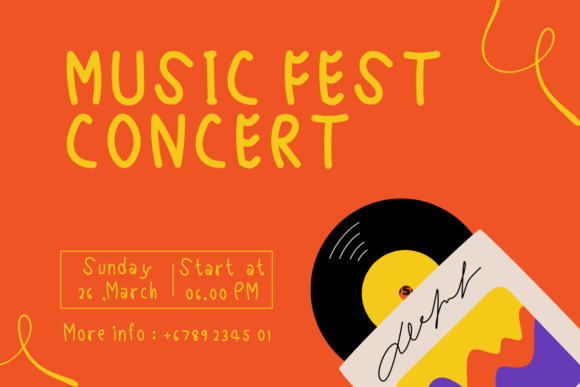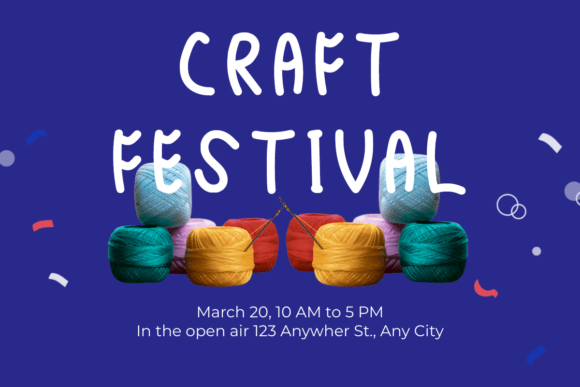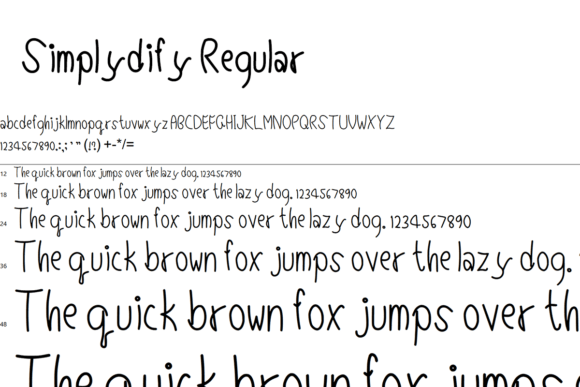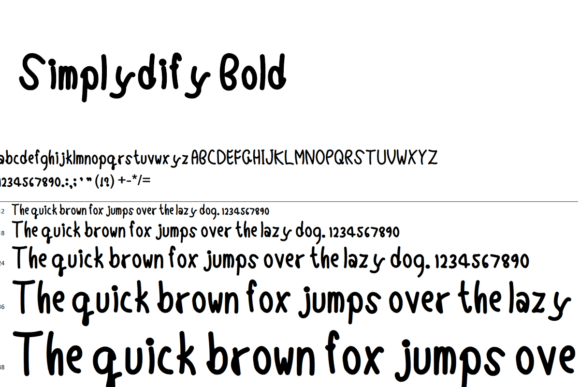
Introduction to Simplydify Font
Remember that moment when you’re working on a creative project, and you just can’t seem to find the right font to bring your vision to life? The words stare back at you, lacking the personality and charm you envision. That’s where the Simplydify Font comes in – a game-changing design resource that adds a touch of elegance and sophistication to your work.
As a designer, you know the value of a high-quality font that elevates your project and sets it apart from the rest. The Simplydify Font is that perfect addition to your design arsenal, offering a unique and creative solution for your next big project. With its free download option and transparent background, you can seamlessly integrate it into your design without any hassle.
Key Features of Simplydify Font
- High-quality design resource for creative projects, featuring a clean and modern aesthetic.
- Designed to be highly legible at various sizes, with a clear and crisp resolution at 300 DPI.
- Perfect for use in digital design, including logos, typography, and graphics, due to its versatility and modern feel.
- Unique characteristics include a subtle rounded edge and a range of font weights, allowing for nuanced expression in your design.
Honest Review: Simplydify Font
I recently had the opportunity to try out the Simplydify Font for a creative project, and I must say I was quite impressed. As a designer, it’s always exciting to discover new design resources that can elevate our work.
- High-quality glyphs: The Simplydify Font boasts crisp and clear glyphs that make it perfect for digital design projects.
Overall, I think the Simplydify Font is a great addition to any designer’s toolkit. It’s a versatile and high-quality font that can be used for a wide range of creative projects.
- Limited font styles: While the Simplydify Font has a clean and modern design, it’s available in only a few font styles, which may limit its versatility for some projects.
Despite this limitation, I would highly recommend the Simplydify Font to designers looking for a high-quality and free design resource. Its transparent background and crisp glyphs make it a valuable asset for any creative project.
The Simplydify Font is a versatile design resource that can be used in a variety of creative projects, including presentations, documents, and social media graphics. It’s a great option for designers who need a high-quality, free download font with a transparent background.
Does the Simplydify Font have a transparent background, making it suitable for use on logos and icons?
Yes, the Simplydify Font has a transparent background, making it an ideal choice for use on logos, icons, and other design elements where a clear background is required. This feature allows for easy layering and compositing in your design projects.